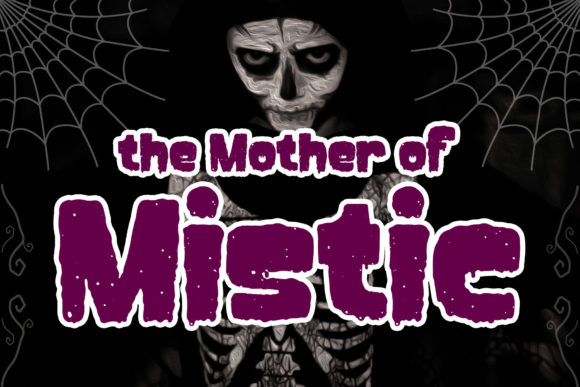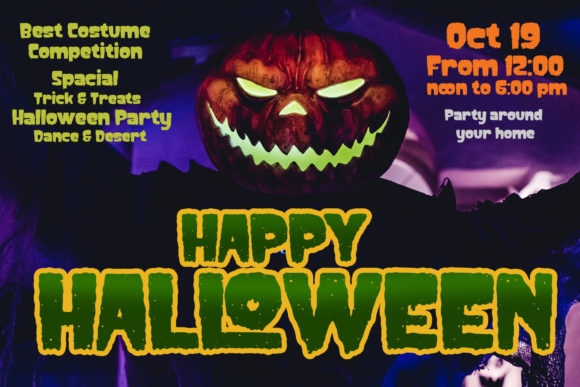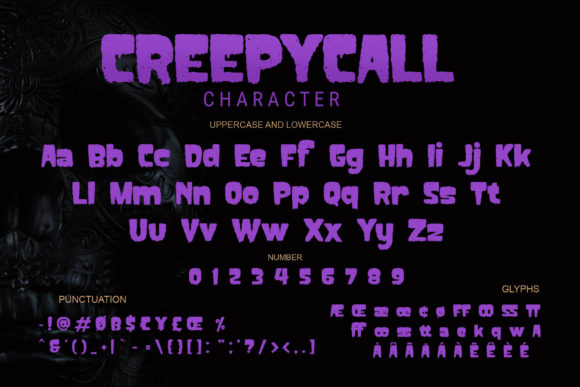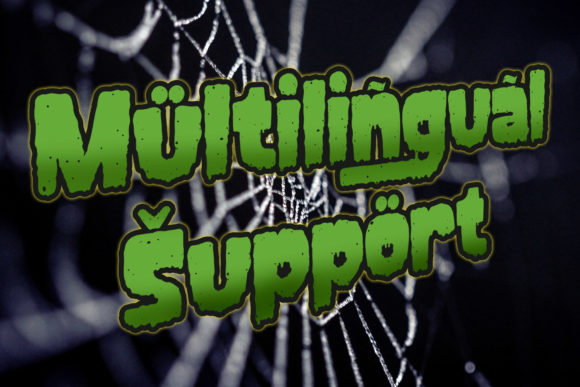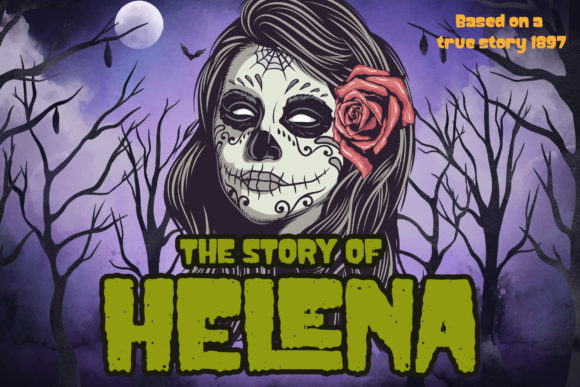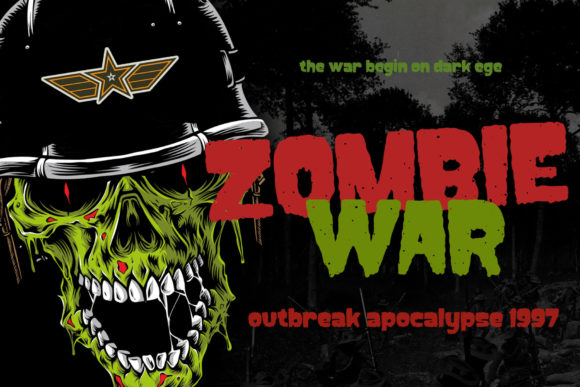
The Perfect Font for a Spooky Twist
Have you ever found yourself browsing through vintage Halloween decorations and posters, imagining the perfect font to match the eerie atmosphere? You’re not alone! Many designers and crafty enthusiasts have been searching for a font that captures the essence of a spooky night, and that’s where the Creepycall Font comes in.
This delightful display font was crafted by hand to evoke a sense of nostalgia and handmade charm. Its unique design is inspired by vintage Halloween posters, making it the perfect addition to any crafty project. With the Creepycall Font, you can add a touch of whimsy and spookiness to your designs, making them stand out from the crowd.
Creepycall Font Key Features
- Font Family: A unique, distressed font designed to resemble a creepy, handwritten style.
- Unique Characteristics: Features a distressed, handwritten style with visible brush strokes and imperfections, adding a creepy and eerie feel to text.
Designer Review: Creepycall Font
I recently had the chance to work with the Creepycall Font, and I must say it’s an interesting choice. Here’s what I think:
- ✨ Unique aesthetic: The Creepycall Font has a distinctive, creepy vibe that’s perfect for horror-themed projects or adding a touch of eeriness to your design.
- ✨ Versatile: Despite its creepy feel, the font is surprisingly versatile and can be used in a variety of contexts, from horror movie titles to dark fantasy book covers.
- ✨ Well-designed: The font’s letterforms are well-crafted and cohesive, making it easy to read and use in different sizes and contexts.
- ⚠️ Limited legibility: While the font is well-designed, it can be difficult to read in certain contexts, particularly at small sizes or in low-light environments.
- ⚠️ Limited compatibility: The font may not be compatible with all operating systems or devices, which could cause issues in certain design scenarios.
Overall, I think the Creepycall Font is a great choice for designers looking to add a touch of creepiness to their projects. While it has some limitations, its unique aesthetic and versatility make it a valuable addition to any designer’s toolkit.
The Creepycall Font is ideal for horror-themed projects, such as Halloween decorations, spooky invitations, or haunted house designs. It’s also great for adding a touch of eeriness to your text.
Remember to use the Creepycall Font sparingly to avoid overwhelming your design. Use it to highlight important text or create a sense of tension.